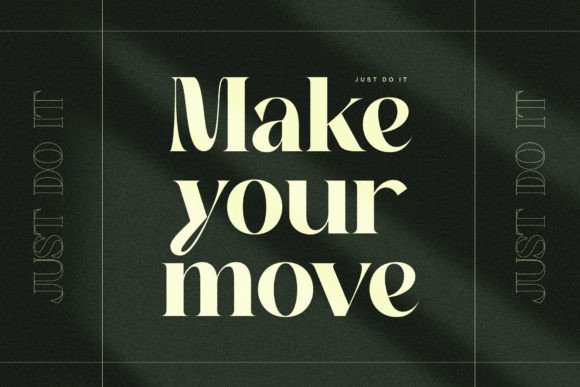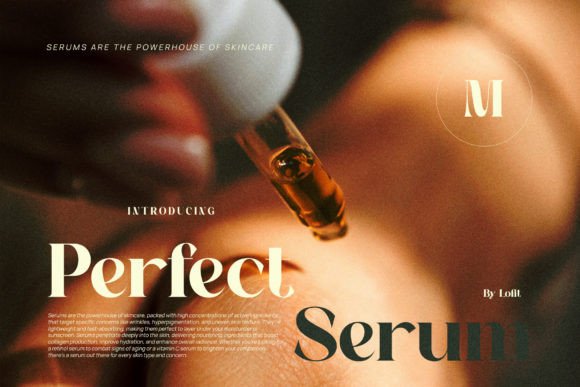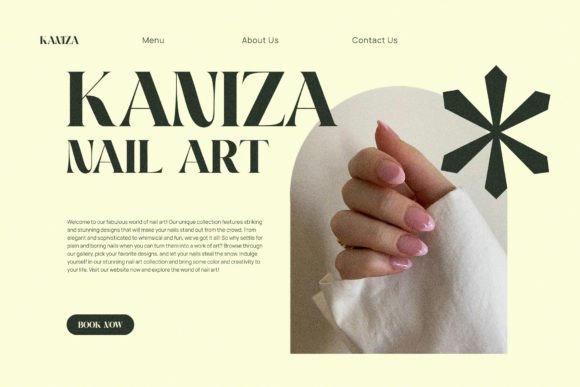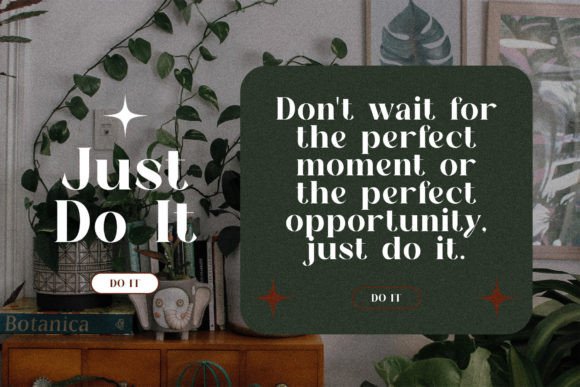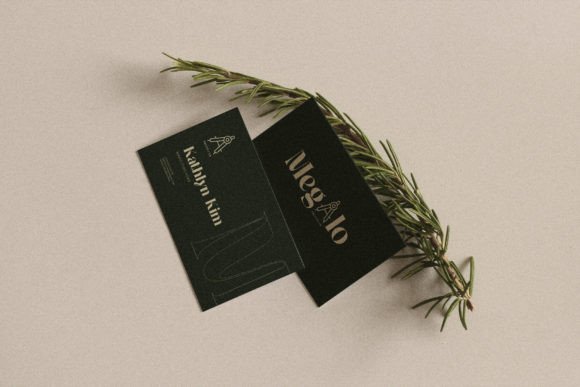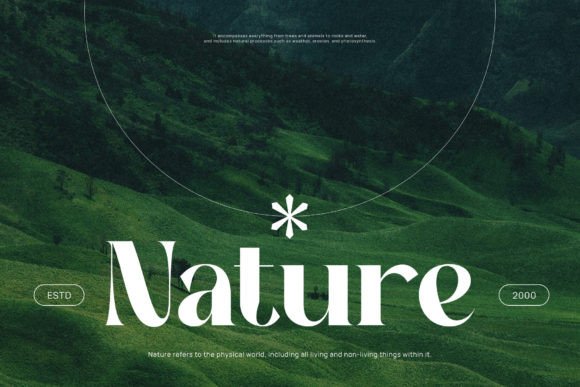
Introduction to Nampy Font Font
Fonts play a crucial role in design, and the Nampy Font font is a typeface that brings both character and versatility to any project. Whether you’re working on a branding project, a website, or a print design, the Nampy Font font offers a unique style that can elevate your work.
Nampy is an elegant and bold serif font.
Fall in love with its incredibly versatile style and use it to create gorgeous wedding invitations, beautiful stationary art, eye-catching social media posts, and much more .
Key Features of Nampy Font Font
Why Choose Nampy Font Font?
The Nampy Font font is more than just a typeface – it’s a design tool that helps you communicate your message with style and clarity. Its unique character set and versatile design make it suitable for a wide range of applications, from elegant invitations to bold headlines.
With its carefully crafted letterforms and balanced proportions, the Nampy Font font ensures readability and visual appeal across all mediums.
What makes Nampy Font font special?
The Nampy Font font stands out with its unique design, exceptional readability, and versatility across various design applications.